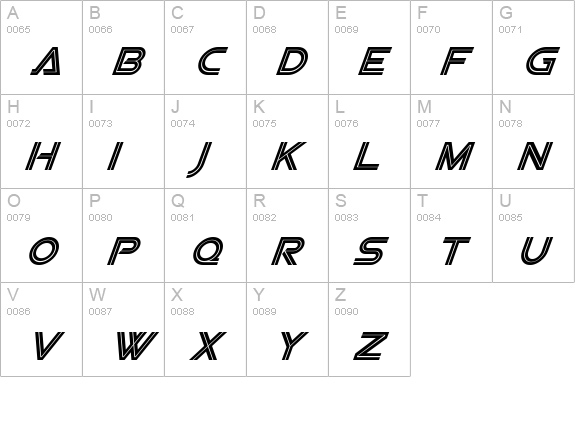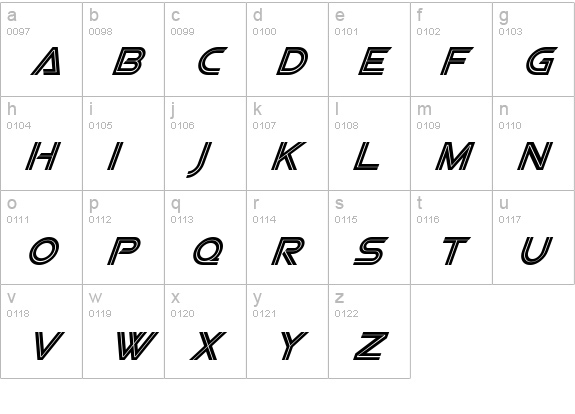
Viper Squadron Italic is a distinctive, italic variant in the Viper typeface family \xE2\x80\x94 well suited to design and typography projects.
Viper Squadron Italic font is a powerful and dynamic typeface that exudes a sense of boldness and sophistication. Its sleek and slanted design adds a touch of modernity and edginess to any project it is used in. With its sharp and distinct letterforms, Viper Squadron Italic font is perfect for creating attention-grabbing headlines, logos, and branding materials. Whether you are designing a high-impact poster or a sleek website, this font will make your text stand out and leave a lasting impression on your audience. The versatility of Viper Squadron Italic font is truly remarkable. It seamlessly blends into various design styles, from futuristic and sci-fi themes to contemporary and minimalistic aesthetics. Its unique character shapes and subtle italic slant create a captivating visual rhythm that adds interest and personality to your designs. One of the most appealing aspects of Viper Squadron Italic font is that it is freely available to download at FontsMarket.com. This means that you can easily access and use this font without any cost or restrictions. Whether you are a professional designer or a hobbyist, this font offers you a valuable tool to enhance your creative projects. So, if you are seeking a font that combines elegance, modernity, and versatility, Viper Squadron Italic font is the perfect choice. Its free availability at FontsMarket.com makes it even more desirable, allowing you to enhance your designs without breaking the bank. Download Viper Squadron Italic font now and unleash its powerful impact on your next design endeavor.